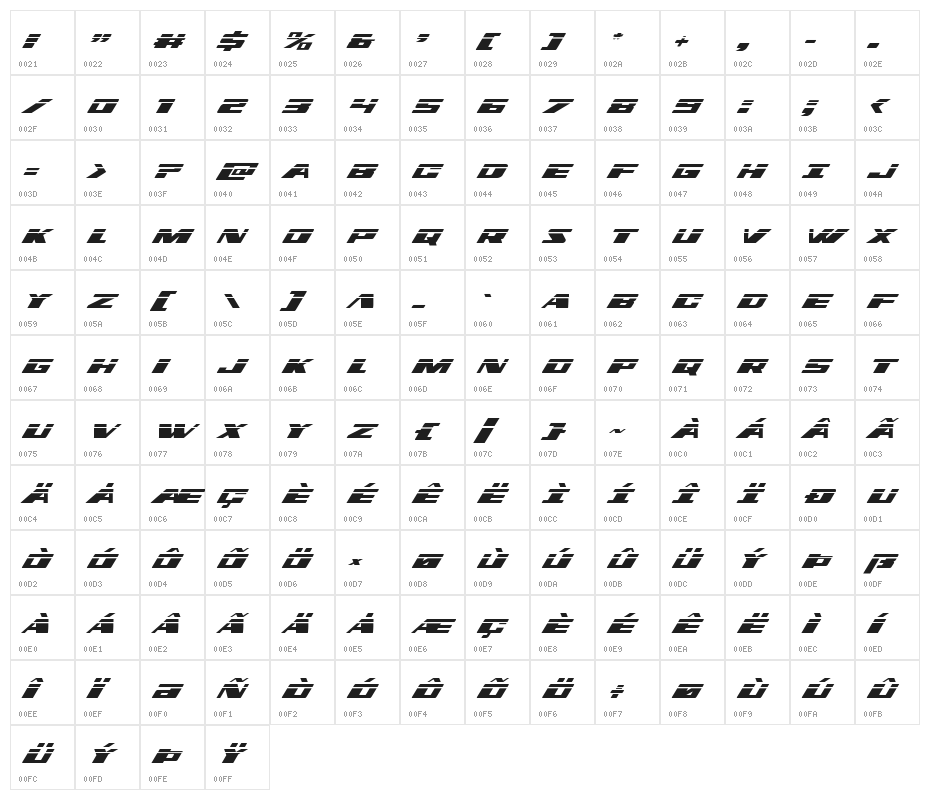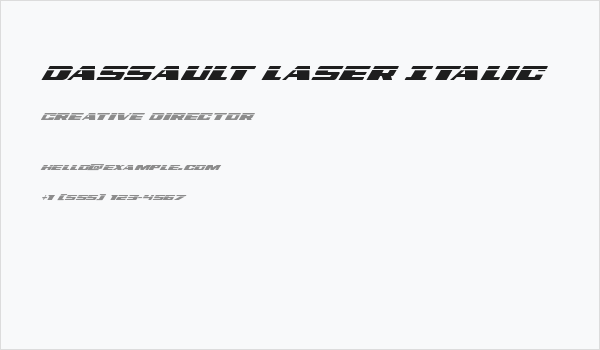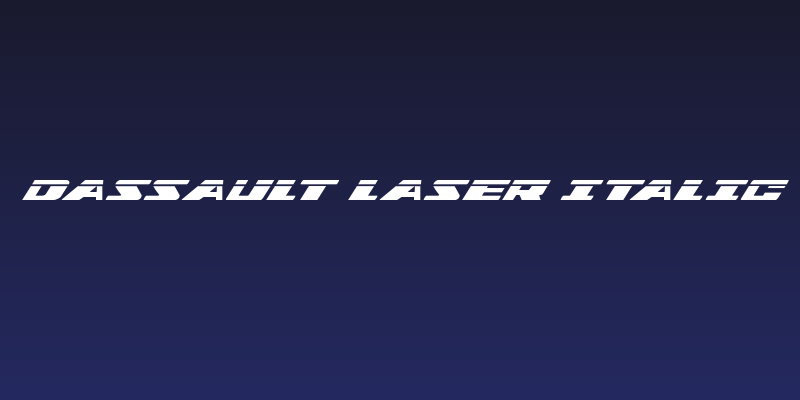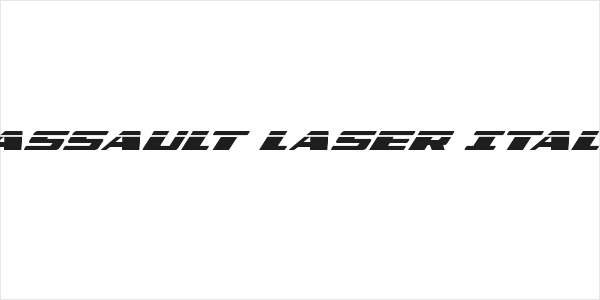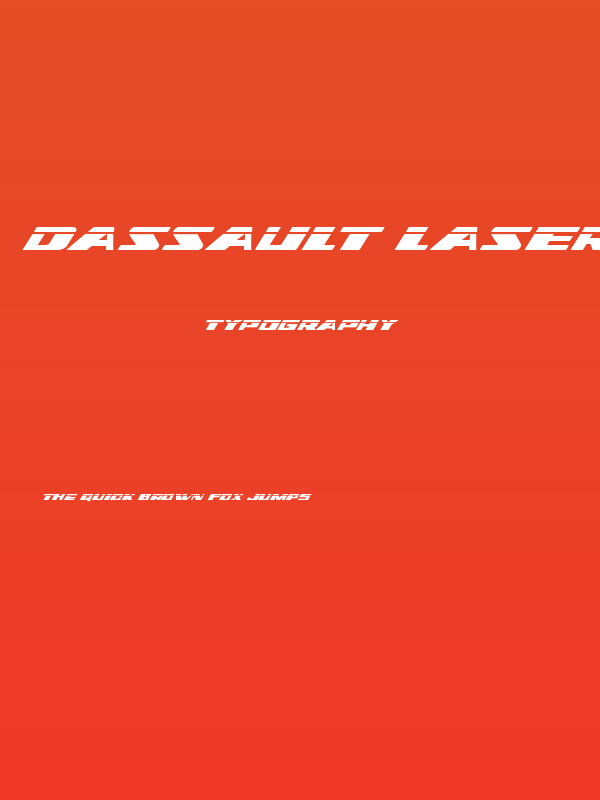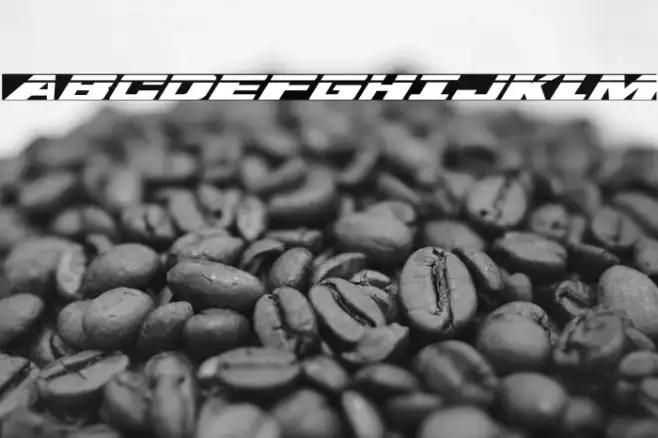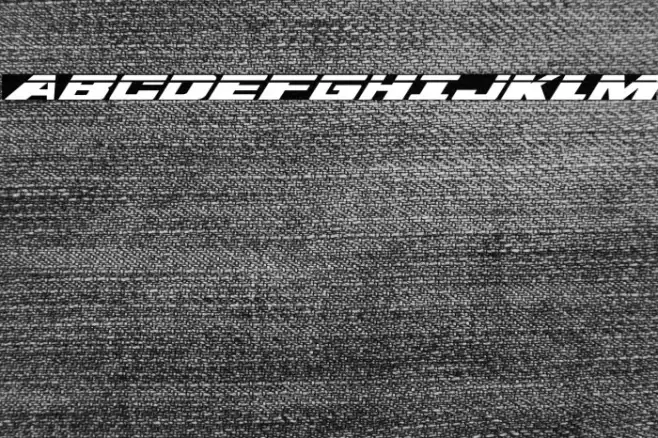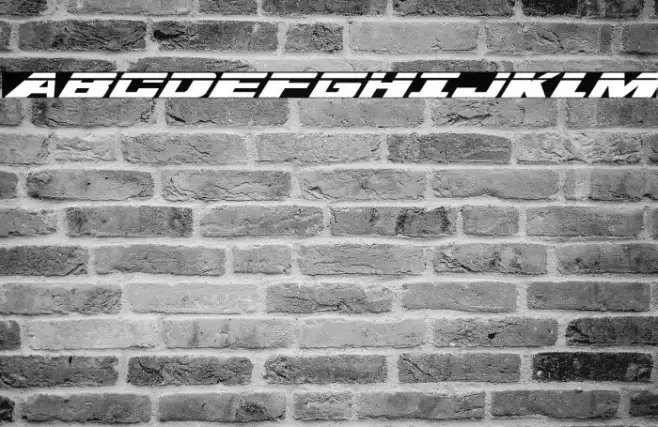
Dassault Laser Italic Font
Dassault Laser Italic Description
This font features a futuristic and dynamic style with sharp, angular lines and a distinct italic slant. The characters are bold and impactful, designed to convey speed and modernity. The uppercase letters are particularly striking, with a strong geometric influence that gives them a unique, cutting-edge appearance. The numbers and special characters maintain this aesthetic, ensuring consistency across all glyphs. The font's design is ideal for projects that require a bold statement or a modern, tech-inspired look.
| Proposed Projects | Ideal for technology branding, sports team logos, video game titles, and futuristic-themed posters. |